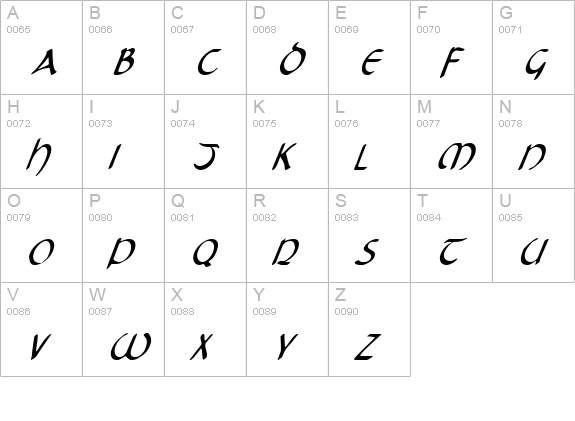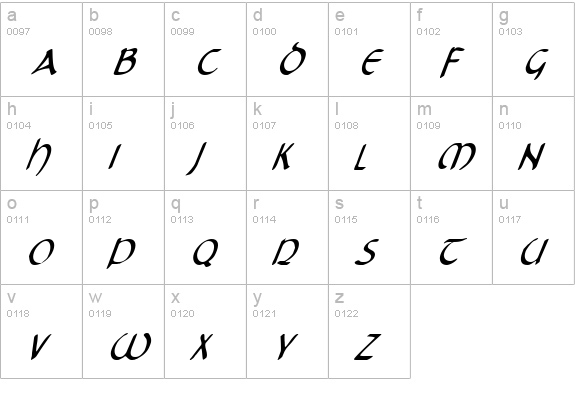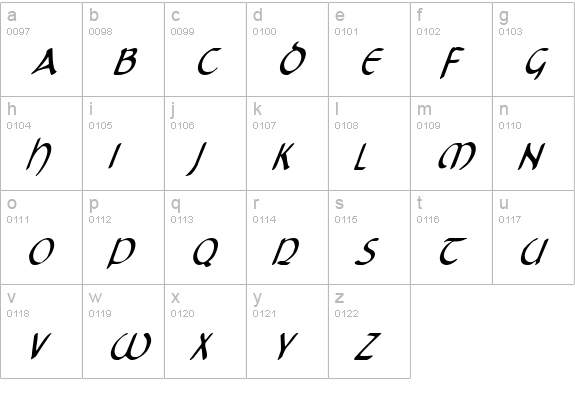
Tristram Condensed Italic is a distinctive, condensed-width, italic variant in the Tristram typeface family \xE2\x80\x94 well suited to design and typography projects.
Tristram Condensed Italic font strikes the perfect balance between elegance and modernity, making it a versatile choice for a wide range of design projects. Its sleek and sophisticated italic style adds a touch of flair to any text, while the condensed design ensures a compact and efficient use of space. The flowing curves and subtle slant of this font create a dynamic and engaging visual impact, perfect for adding a touch of sophistication to your designs. The best part? Tristram Condensed Italic font is available for free download at FontsMarket.com. Whether you're working on a branding project, website design, or any other creative endeavor, this font is sure to elevate your work to the next level. Don't miss out on the opportunity to enhance your designs with the stylish and contemporary Tristram Condensed Italic font – download it for free today!